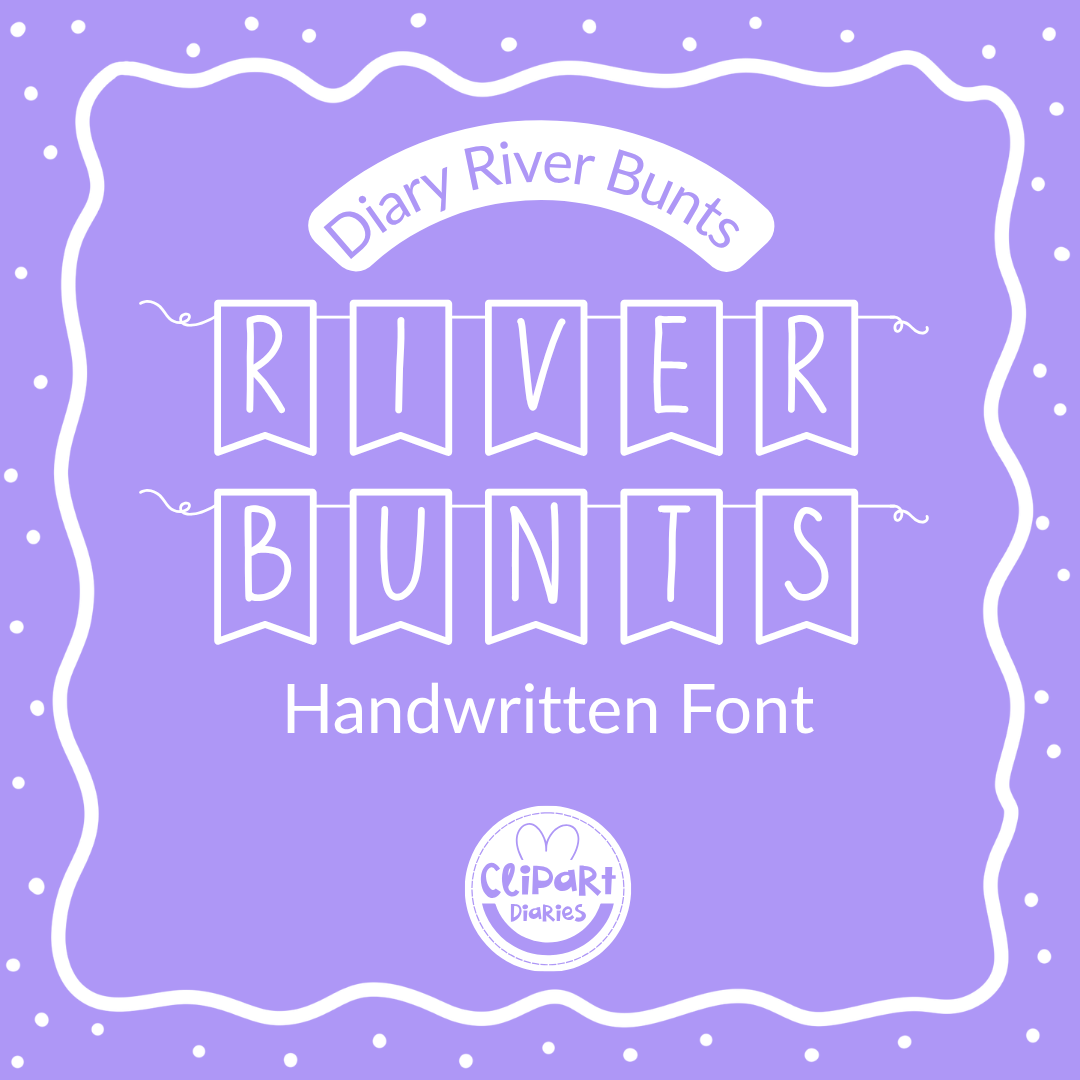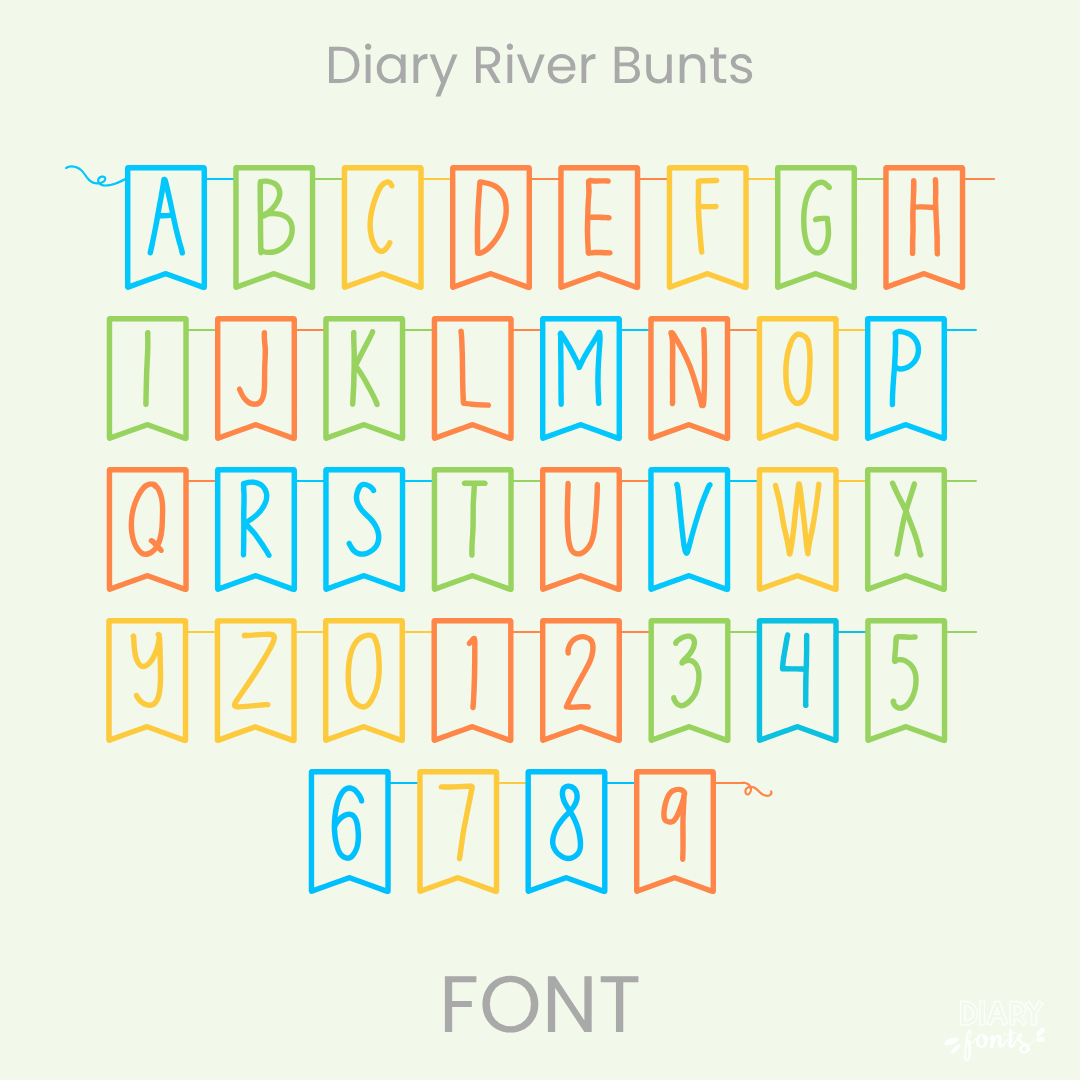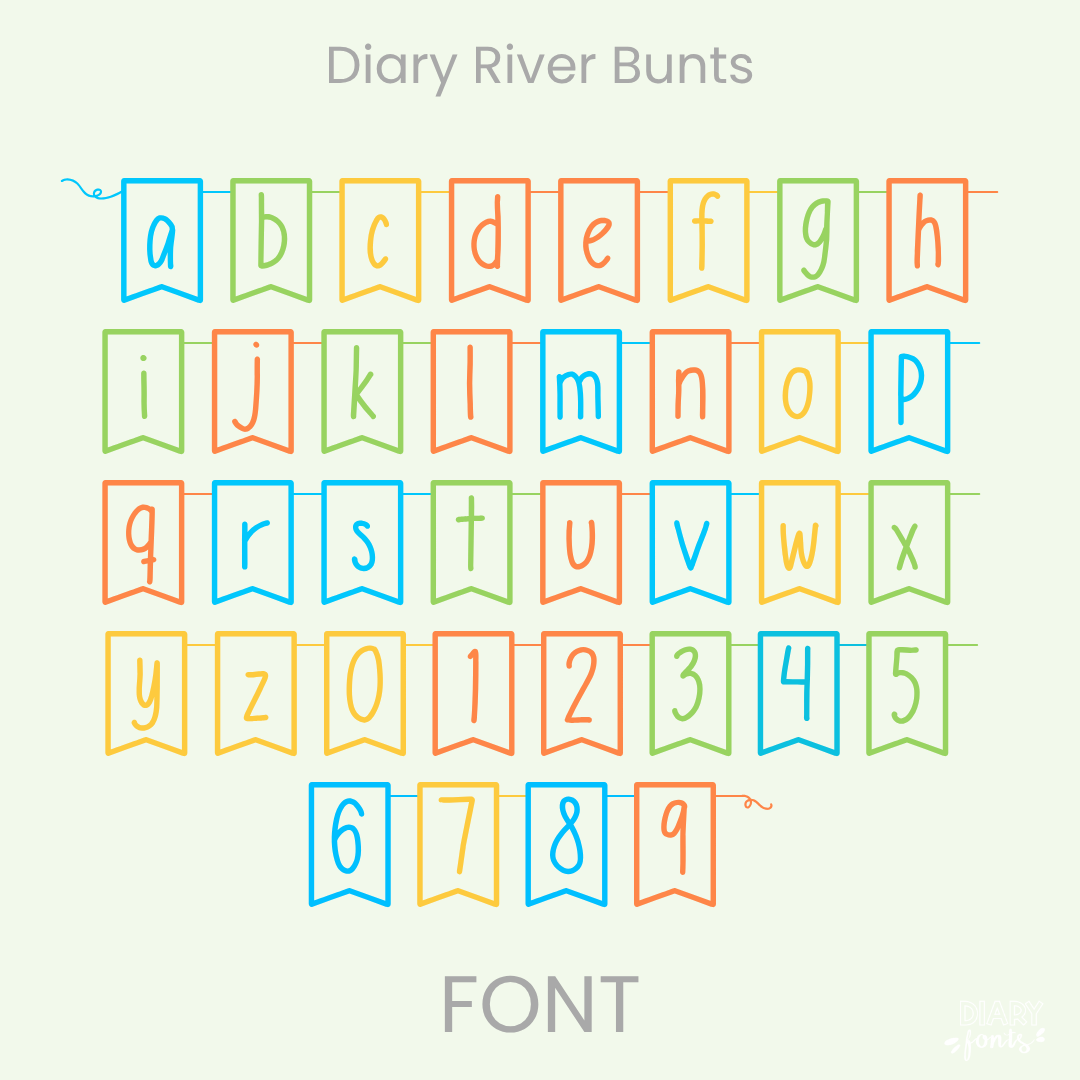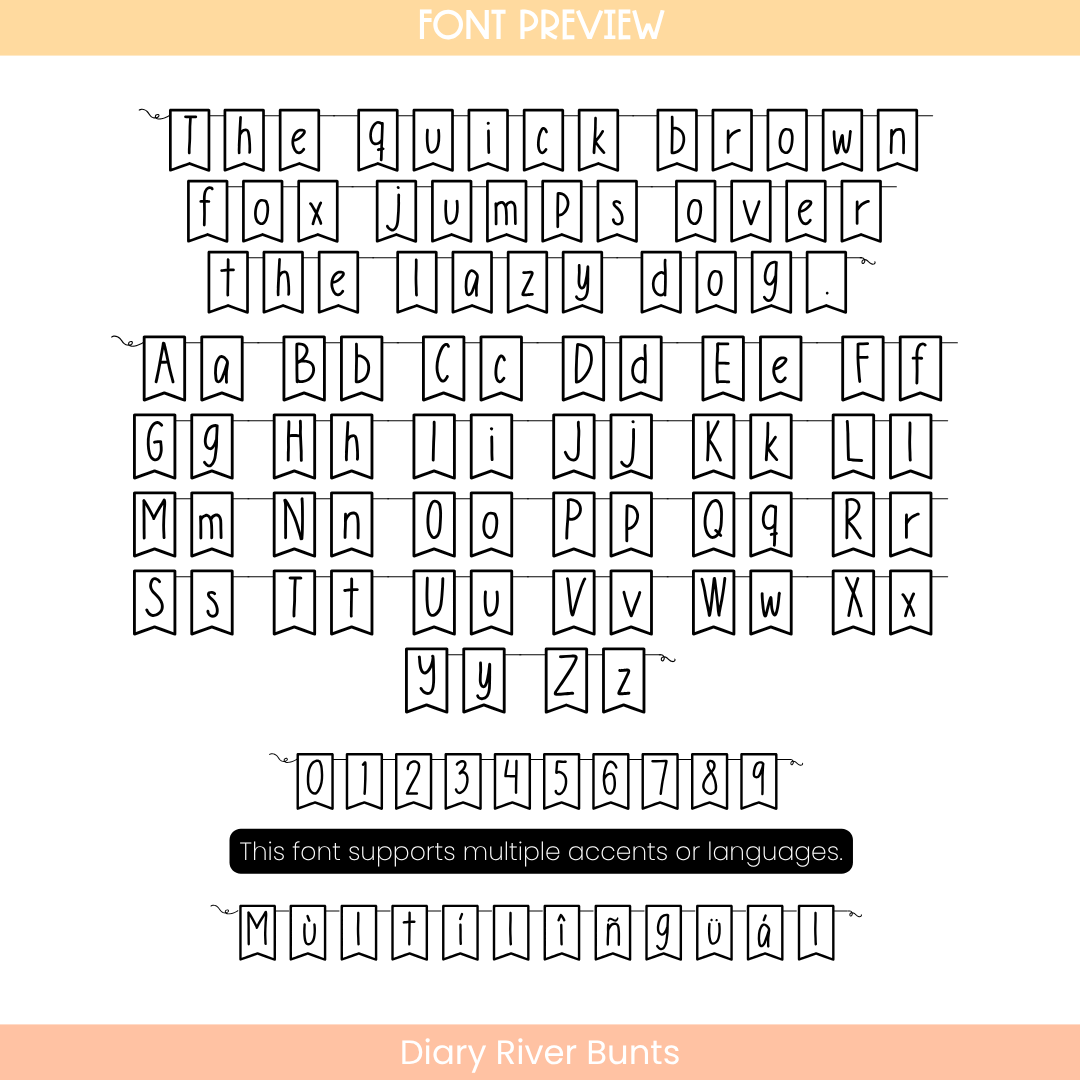
If you loved the look of individual banner letters but wanted them to feel like a truly connected string of festive bunting, Diary River Bunts is your absolute dream font. This clever display typeface puts each clean, upright handwritten letter and number inside its own hanging banner flag, but takes the design a step further by including built-in connecting strings that automatically link your words across the page.
It also includes some amazing hidden tricks to totally transform your layouts! By typing a left brace {, you get a beautiful, loopy beginning swash to start your banner string. Typing a right brace } gives you a matching end swash to tie it all together cleanly. Need a space between two words without breaking the bunting string? Simply type an underscore _ to generate a continuous line separator that bridges the gap seamlessly.